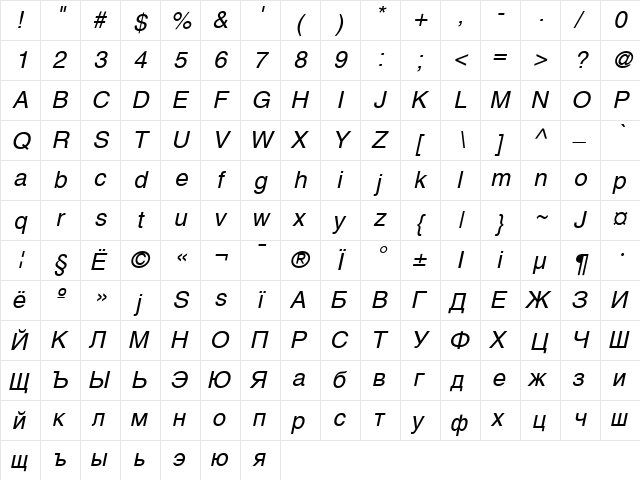
AGHelveticaCyr Oblique
Design Context for AGHelveticaCyr Typeface
AGHelveticaCyr takes a measured approach to typography — its balanced proportions and neutral character make it a reliable workhorse for both digital and print work. The dynamic lean of this cut emphasises speed and emphasis in any layout.